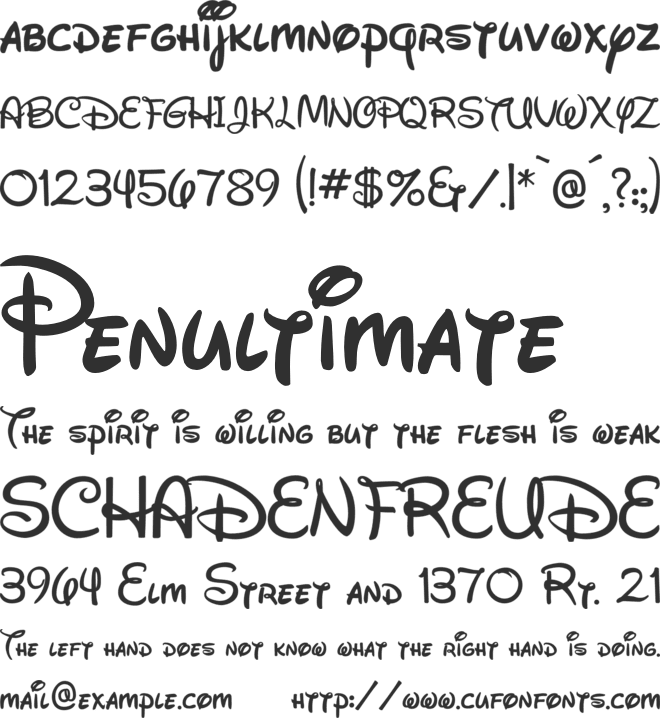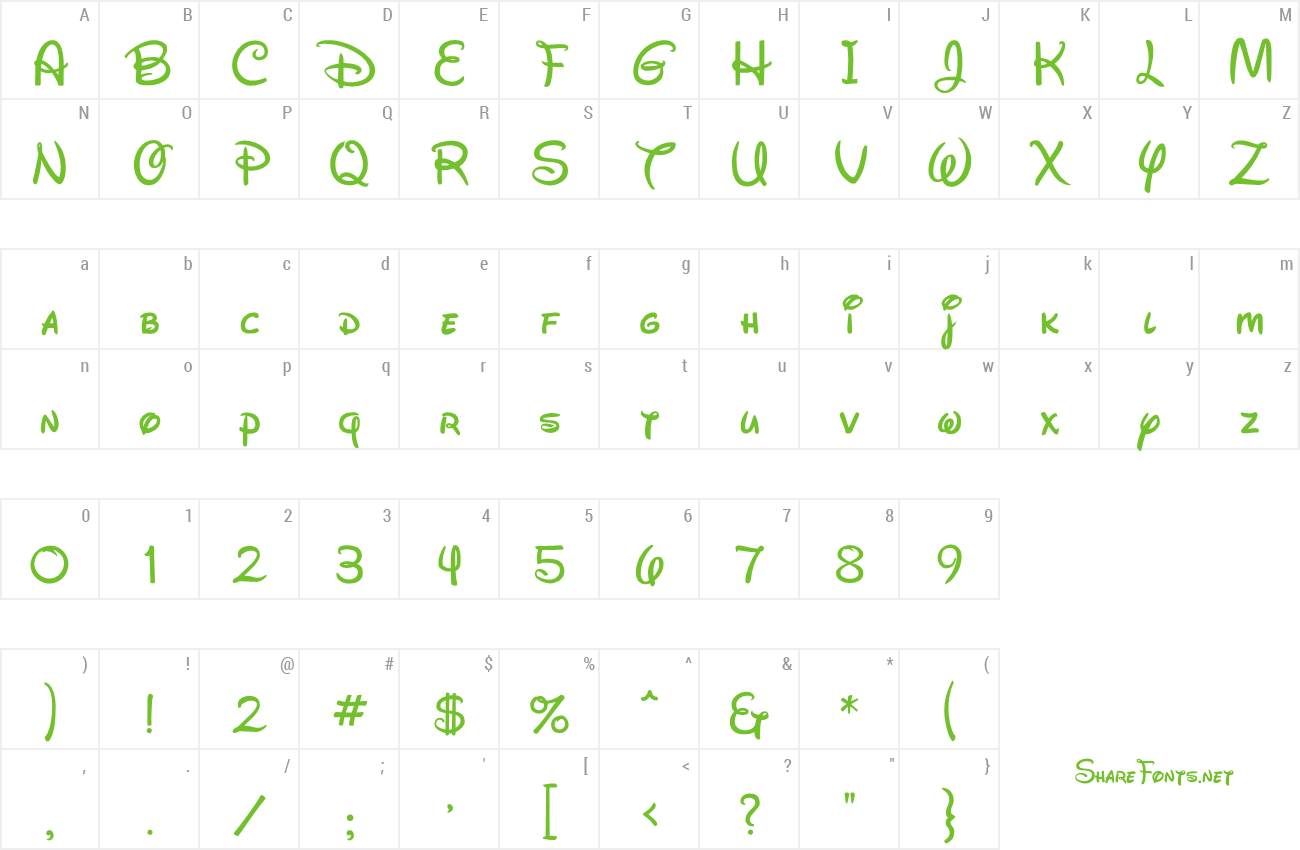
Waltograph Font Download - The font is licensed as free for personal use. You can download and use. Web waltograph à € by justin callaghan. Web waltograph also known as walt disney font is a script, various font designed by justin callaghan. Web free download of new waltograph font family with 2 styles.
Web waltograph à € by justin callaghan. Web waltograph also known as walt disney font is a script, various font designed by justin callaghan. Web free download of new waltograph font family with 2 styles. The font is licensed as free for personal use. You can download and use.
Web waltograph also known as walt disney font is a script, various font designed by justin callaghan. The font is licensed as free for personal use. Web free download of new waltograph font family with 2 styles. You can download and use. Web waltograph à € by justin callaghan.
Web waltograph also known as walt disney font is a script, various font designed by justin callaghan. Web free download of new waltograph font family with 2 styles. The font is licensed as free for personal use. You can download and use. Web waltograph à € by justin callaghan.
Web free download of new waltograph font family with 2 styles. The font is licensed as free for personal use. Web waltograph also known as walt disney font is a script, various font designed by justin callaghan. Web waltograph à € by justin callaghan. You can download and use.
You can download and use. Web waltograph à € by justin callaghan. Web waltograph also known as walt disney font is a script, various font designed by justin callaghan. Web free download of new waltograph font family with 2 styles. The font is licensed as free for personal use.
Web waltograph also known as walt disney font is a script, various font designed by justin callaghan. The font is licensed as free for personal use. Web free download of new waltograph font family with 2 styles. You can download and use. Web waltograph à € by justin callaghan.
The font is licensed as free for personal use. Web free download of new waltograph font family with 2 styles. Web waltograph also known as walt disney font is a script, various font designed by justin callaghan. Web waltograph à € by justin callaghan. You can download and use.
The font is licensed as free for personal use. Web free download of new waltograph font family with 2 styles. You can download and use. Web waltograph à € by justin callaghan. Web waltograph also known as walt disney font is a script, various font designed by justin callaghan.
You can download and use. The font is licensed as free for personal use. Web waltograph à € by justin callaghan. Web waltograph also known as walt disney font is a script, various font designed by justin callaghan. Web free download of new waltograph font family with 2 styles.
Web free download of new waltograph font family with 2 styles. Web waltograph à € by justin callaghan. The font is licensed as free for personal use. You can download and use. Web waltograph also known as walt disney font is a script, various font designed by justin callaghan.
Download Waltograph Disney font
Web waltograph à € by justin callaghan. You can download and use. Web waltograph also known as walt disney font is a script, various font designed by justin callaghan. The font is licensed as free for personal use. Web free download of new waltograph font family with 2 styles.
Waltograph Font download free
The font is licensed as free for personal use. Web waltograph also known as walt disney font is a script, various font designed by justin callaghan. Web free download of new waltograph font family with 2 styles. Web waltograph à € by justin callaghan. You can download and use.
Web waltograph à € by justin callaghan. Web waltograph also known as walt disney font is a script, various font designed by justin callaghan. The font is licensed as free for personal use. You can download and use.